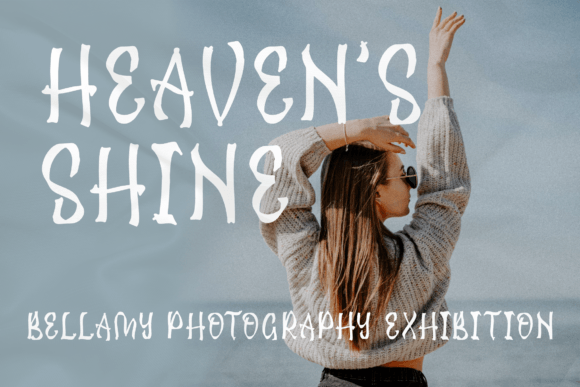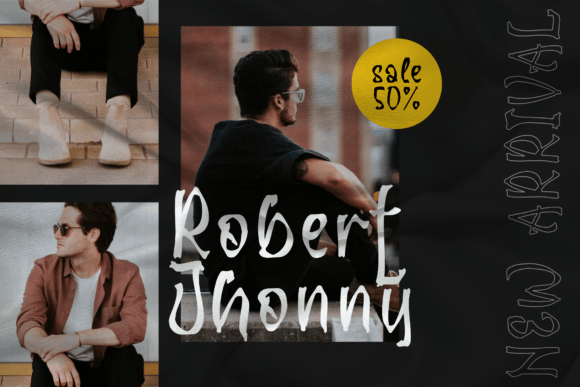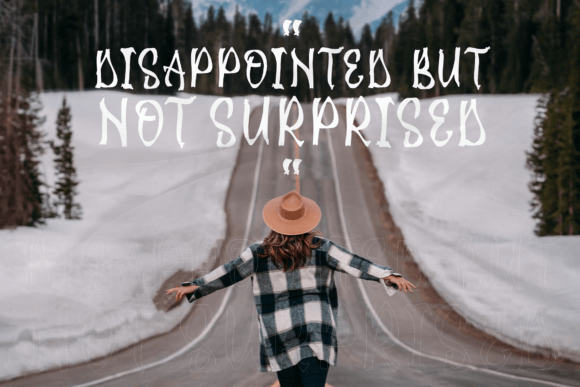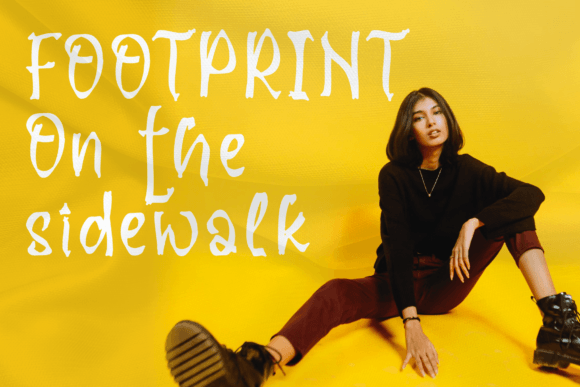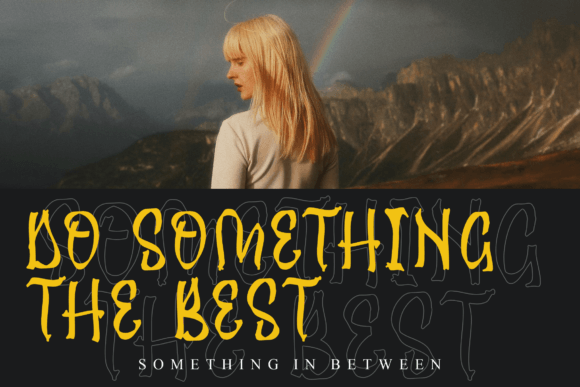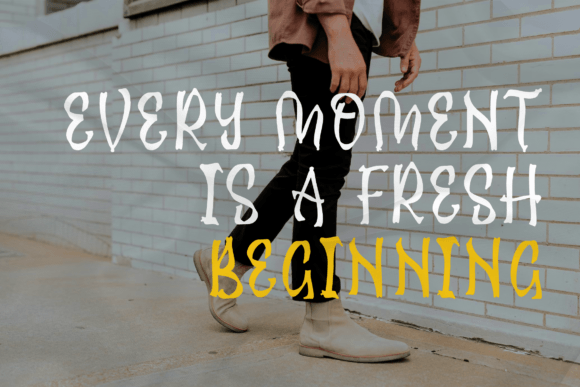
Discover the Perfect Quirky Touch with the Jacklin Slasher Font
As a designer, have you ever found yourself stuck in a creative rut, searching for the perfect typography to bring your vision to life? You’re not alone. Sometimes, all it takes is that one special font to spark a wave of inspiration and set your project off on the right foot. For me, that font is the charming Jacklin Slasher – a quirky handwritten font that’s as versatile as it is unique.
The Jacklin Slasher Font is designed to add a personal touch to any project, from logos and branding to homeware designs and product packaging. Its playful, handwritten style makes it perfect for capturing attention and conveying emotion. As a designer, you’ll appreciate the value of having a font like Jacklin Slasher in your toolkit, allowing you to add a distinctive flair to your work and stand out from the crowd.
- Unique Characteristics: Distinctive slasher-like design elements, adding a touch of edginess and modernity to text-based content.
Designer Review: Jacklin Slasher Font
As a designer, I was excited to dive into the Jacklin Slasher font and see what it had to offer. Here’s my honest review.
- Unique, edgy aesthetic: The Jacklin Slasher font has a bold, futuristic vibe that’s perfect for making a statement.
- Highly customizable: With over 100 glyphs and support for various languages, this font is incredibly versatile.
- Professional-grade quality: The font’s design and rendering are top-notch, making it suitable for commercial use.
- Limited legibility: At small font sizes, the Slasher’s bold lines can become difficult to read.
- Not ideal for body text: While the font works well for headings and titles, it may not be the best choice for large blocks of text.
- Some characters may not render correctly: I noticed a few instances where the font failed to display certain characters or symbols.
Overall, I think the Jacklin Slasher font is a great addition to any designer’s toolkit, but it’s essential to use it judiciously. When paired with a more legible font for body text, this font can add a much-needed pop of personality to your designs.
Tip: Use the Jacklin Slasher Font to add a touch of elegance to your headings and titles.
Tip: Use the Jacklin Slasher Font to add a touch of sophistication to your typography.
Tip: Use the Jacklin Slasher Font to add a touch of professionalism to your presentations and documents.
The Jacklin Slasher Font is ideal for:
- Brand logos and typography
- Headings and titles in marketing materials
Alternatives to Jacklin Slasher Font
The Great Vibes Font is a modern, cursive script font that is perfect for creating a friendly and approachable atmosphere. It is ideal for use in branding, advertising, and packaging design. Great Vibes Font has a similar feel to Jacklin Slasher Font, but with a more refined and elegant appearance.
Comparison: Great Vibes Font has a more sophisticated and refined feel compared to Jacklin Slasher Font, making it a great choice for high-end branding and advertising.
The Dancing Script Font is a fun and playful cursive script font that is perfect for creating a lively and energetic atmosphere. It is ideal for use in social media graphics, blog posts, and promotional materials. Dancing Script Font has a similar energetic feel to Jacklin Slasher Font, but with a more whimsical and carefree appearance.
Comparison: Dancing Script Font has a more playful and energetic feel compared to Jacklin Slasher Font, making it a great choice for social media and promotional materials.